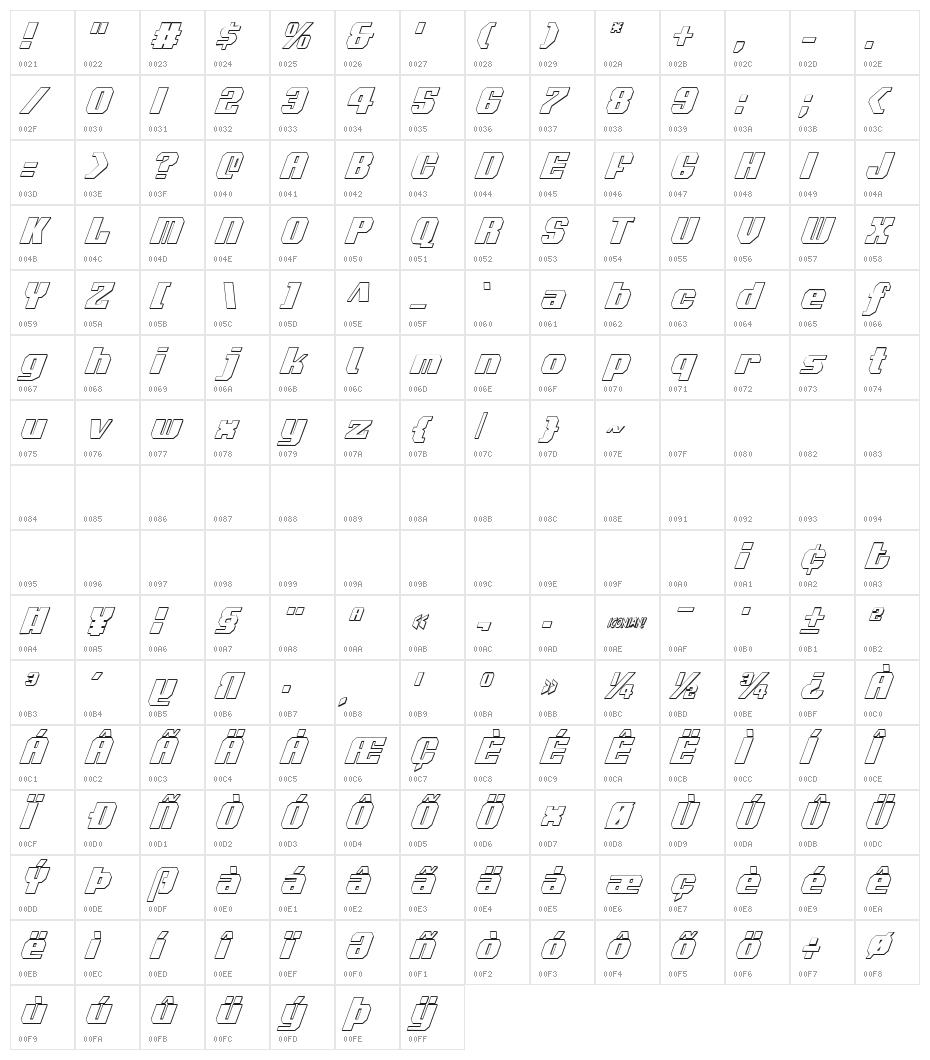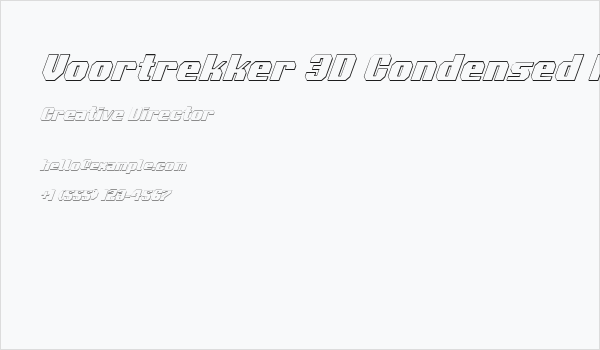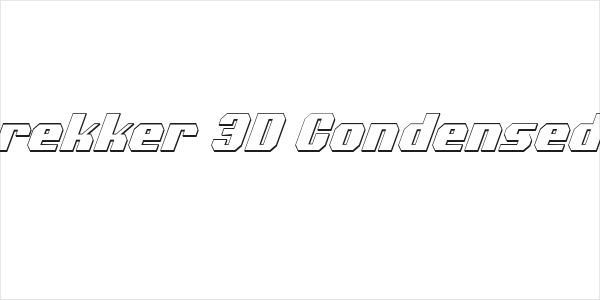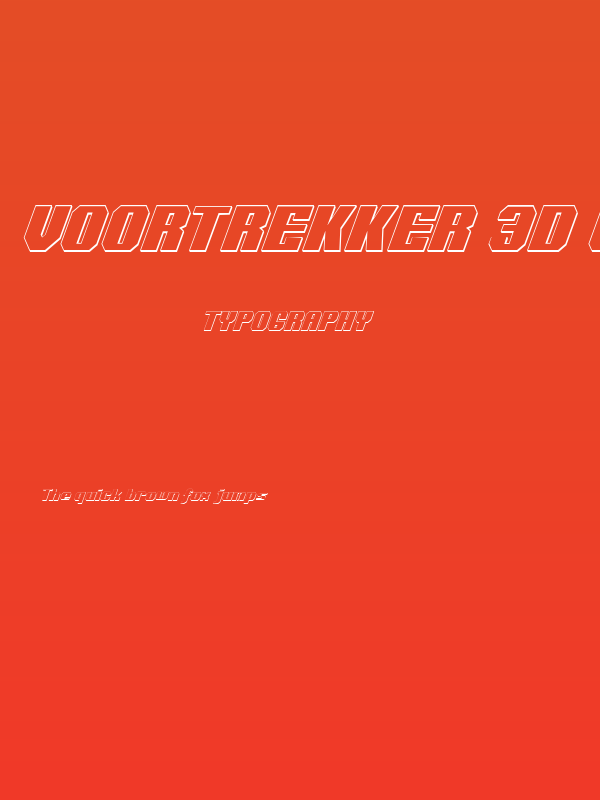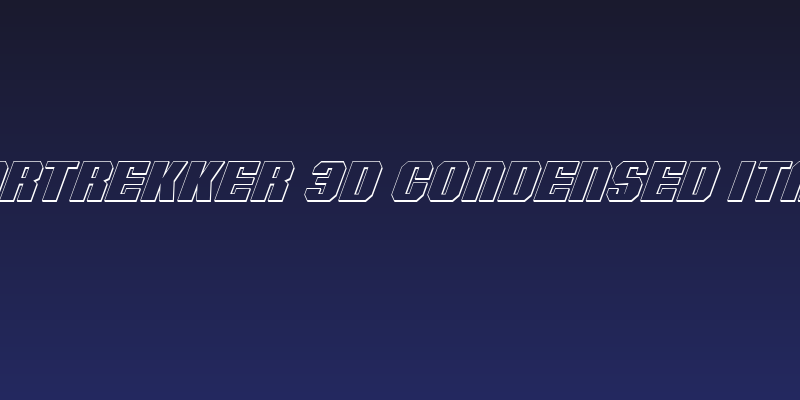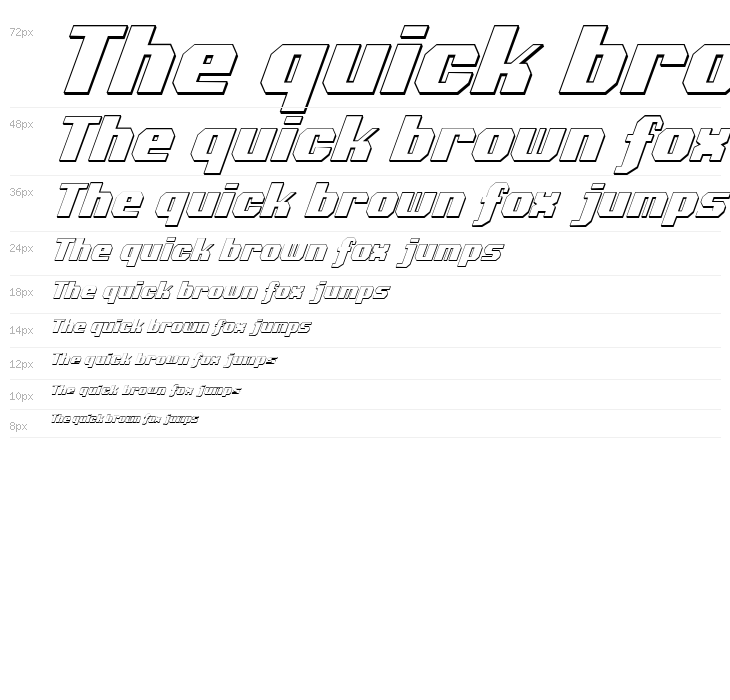
Voortrekker 3D Condensed Italic Font
Voortrekker 3D Condensed Italic Description
This font features a bold, three-dimensional style with a condensed and italicized form. Each character is outlined, giving a sense of depth and a futuristic aesthetic. The uppercase and lowercase letters maintain a consistent geometric structure, while the numbers and special characters are designed to match the overall style. The italic slant adds a dynamic feel, making it suitable for attention-grabbing designs. Its condensed nature allows for efficient use of space, making it ideal for headlines or titles where impact is essential.
| Proposed Projects | Ideal for posters, video game titles, sci-fi themed projects, and branding that requires a modern and bold statement. |